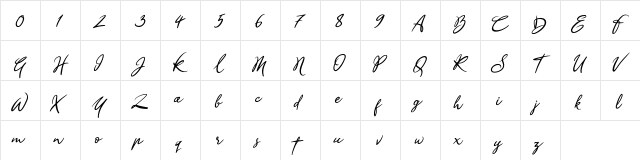
Sandra Belhock Italic Font Preview
Sandra Belhock Italic Sandra Belhock Italic
Sandra Belhock Italic Font Details
| Style | Sandra Belhock Italic |
| Foundry | Cundrawan cove703 |
| Designer | Cundrawan cove703 |
Design Context for Sandra Belhock Italic Typeface
Sandra Belhock Italic is a composed and adaptable typeface that performs quietly and consistently across a wide range of design contexts. The dynamic lean of this cut emphasises speed and emphasis in any layout.